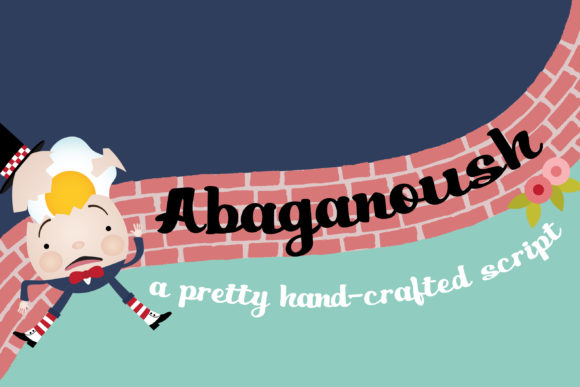
The Abaganoush Font: A Bold and Beautiful Script for Creative Projects
I’ll never forget the time I was working on a project for a client who wanted a bold, eye-catching title for their poster. I had spent hours browsing through font libraries, but nothing seemed quite right. That was when I stumbled upon the Abaganoush font – a hand-crafted script that immediately caught my attention with its bold and heavy cursive style.
As I began to experiment with the font, I realized that it was perfect for titles, displays, posters, and more. Its unique blend of elegance and playfulness made it an instant favorite for my creative projects. In this article, I’ll share my experience with the Abaganoush font, including its features, how to use it on different platforms, and some similar fonts you might enjoy.
An Honest Review of Abaganoush Font
• ✨ Bold and eye-catching: The Abaganoush font is perfect for making a statement with your titles and headings.
• ✅ High-quality design: The font is hand-crafted, which gives it a unique and personal touch.
• 🎨 Versatile: Abaganoush can be used for a wide range of creative projects, from posters and flyers to social media graphics and presentations.
While I love the Abaganoush font, there are a few things to keep in mind:
• 🤔 Legibility at small sizes: Like many script fonts, Abaganoush can be difficult to read at small sizes. It’s best used for titles and headings rather than body text.
• ⚠️ Limited OpenType features: While Abaganoush has some OpenType features, it’s not as extensive as some other fonts on the market.
The Designer Inspiration Behind Abaganoush
The Abaganoush font was designed with inspiration from traditional calligraphy and hand-lettering. The designer aimed to create a font that was both elegant and playful, with a unique and personal touch. While the designer’s background is unknown, it’s clear that they have a deep understanding of typography and a passion for creating beautiful, hand-crafted fonts.
Q: What is the Abaganoush font best used for?
A: The Abaganoush font is best used for titles, headings, and displays, where its bold and eye-catching style can shine.
Q: Is Abaganoush a difficult font to read?
A: Like many script fonts, Abaganoush can be difficult to read at small sizes. It’s best used for titles and headings rather than body text.